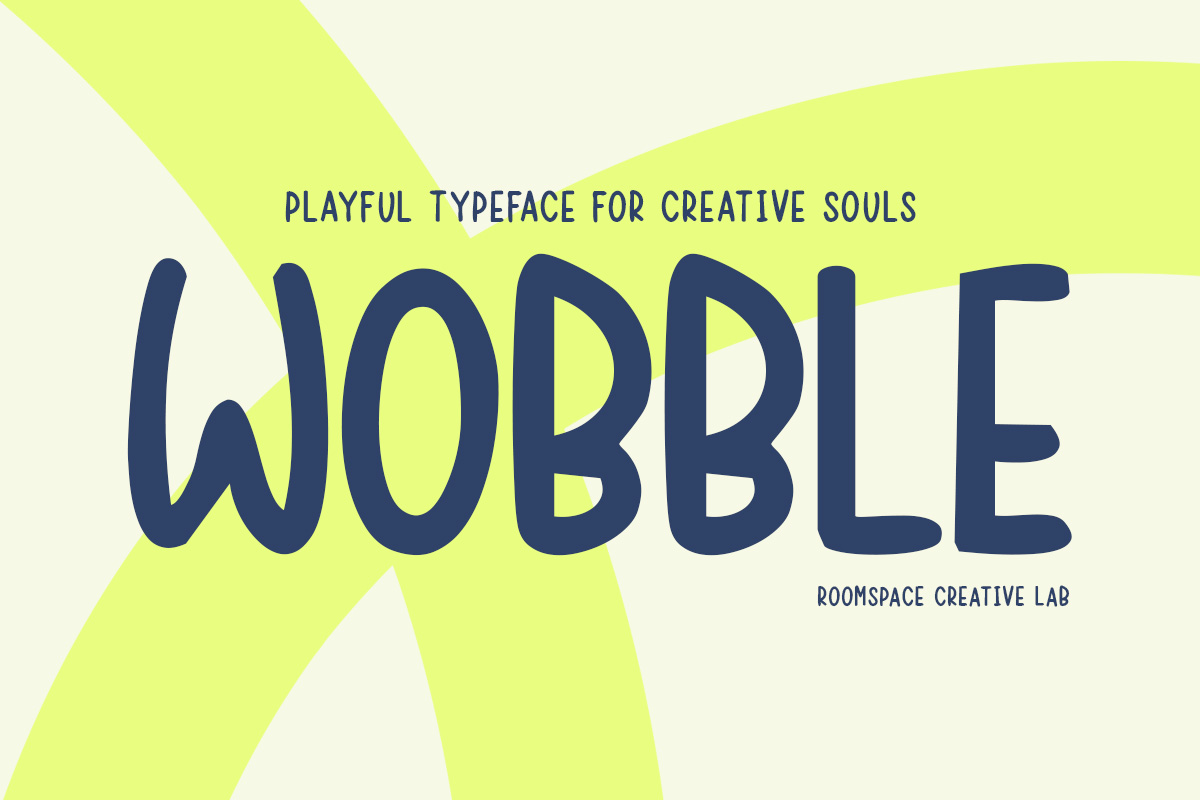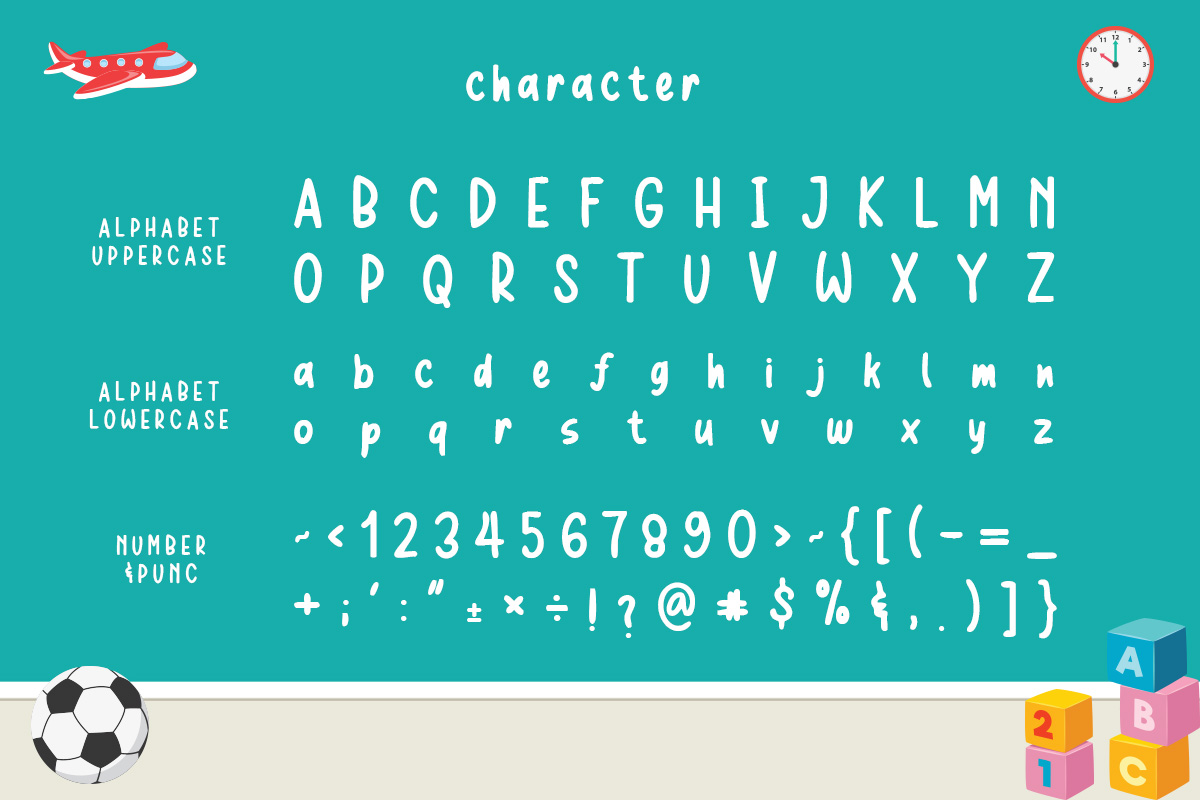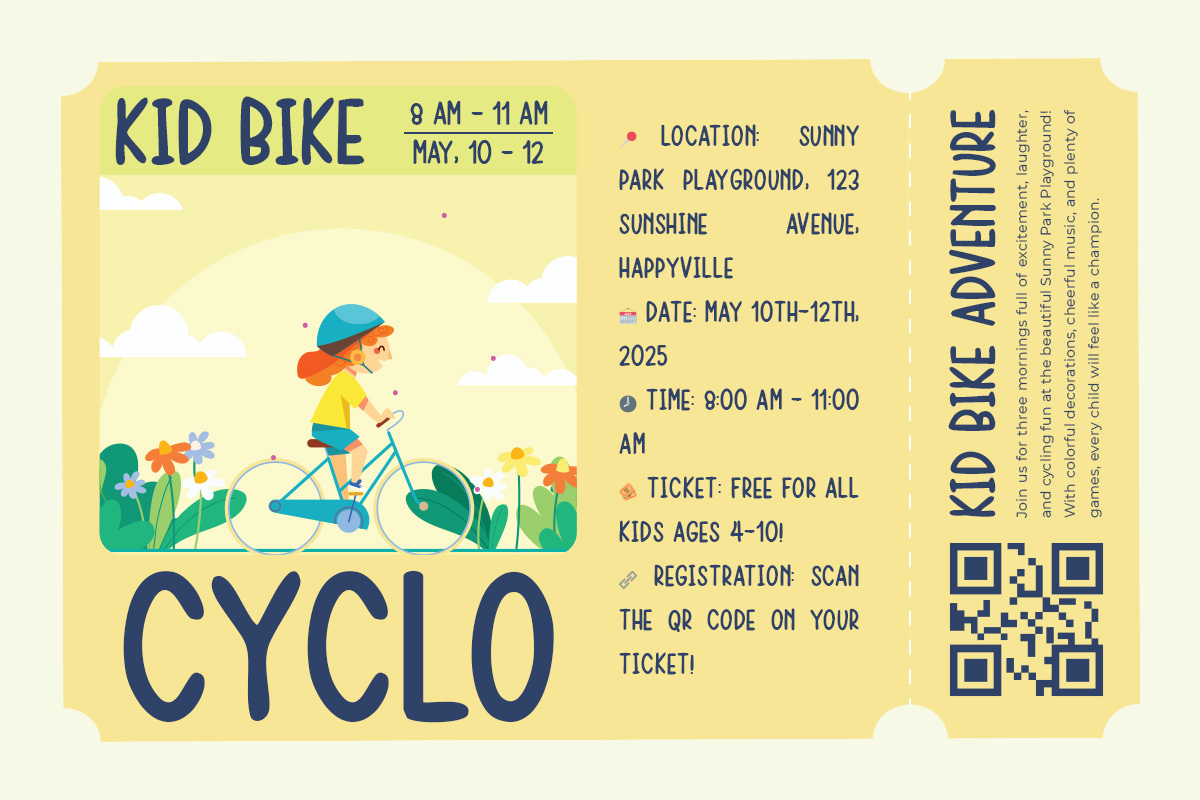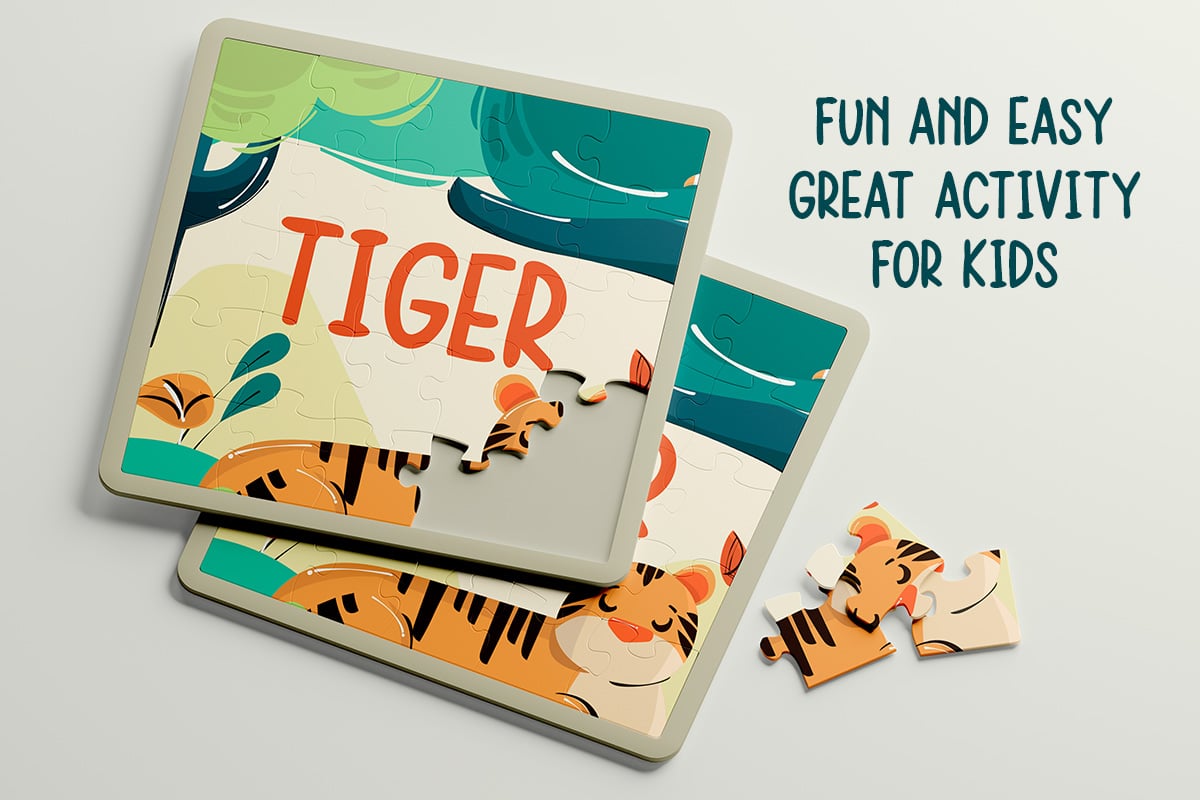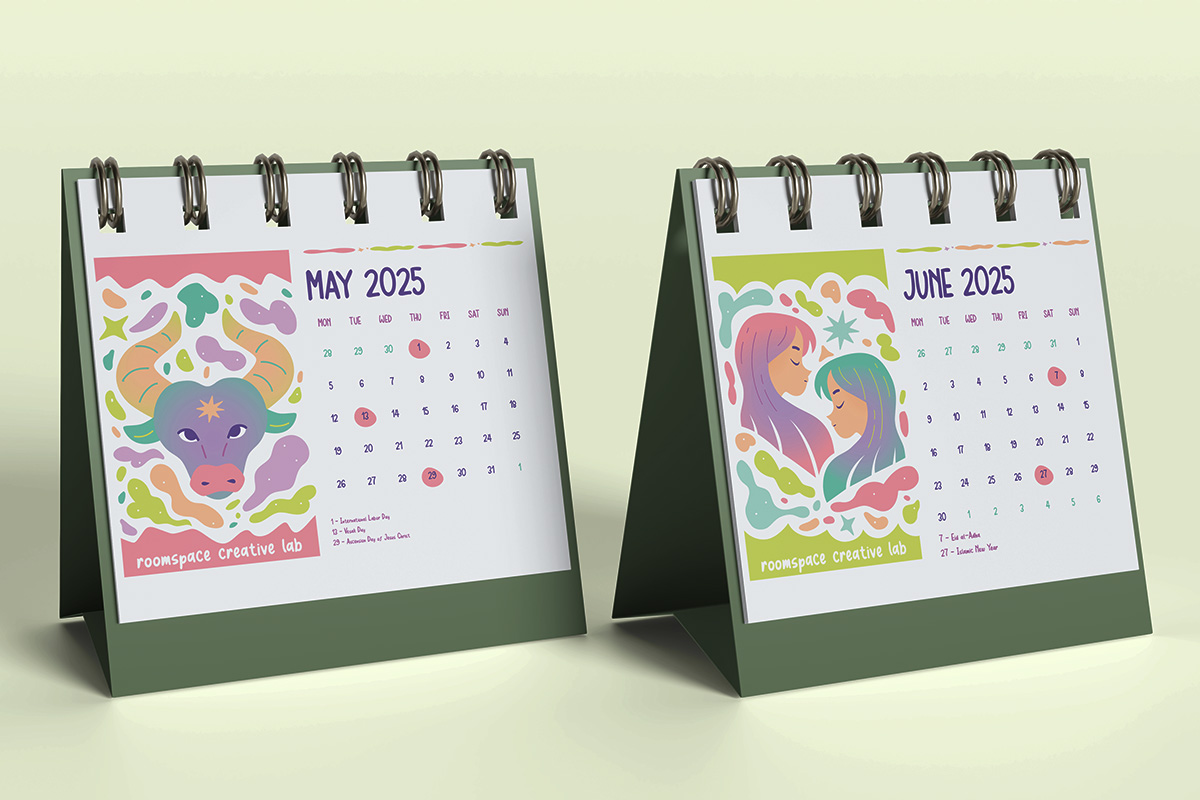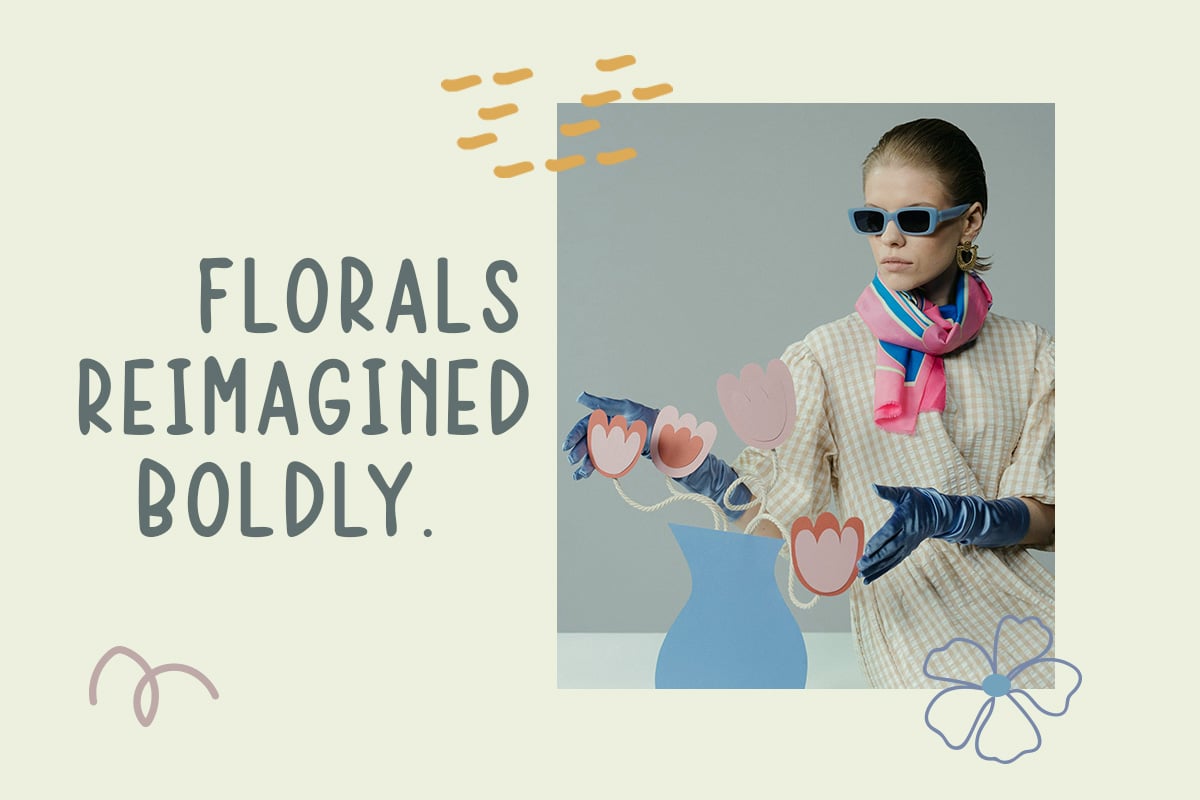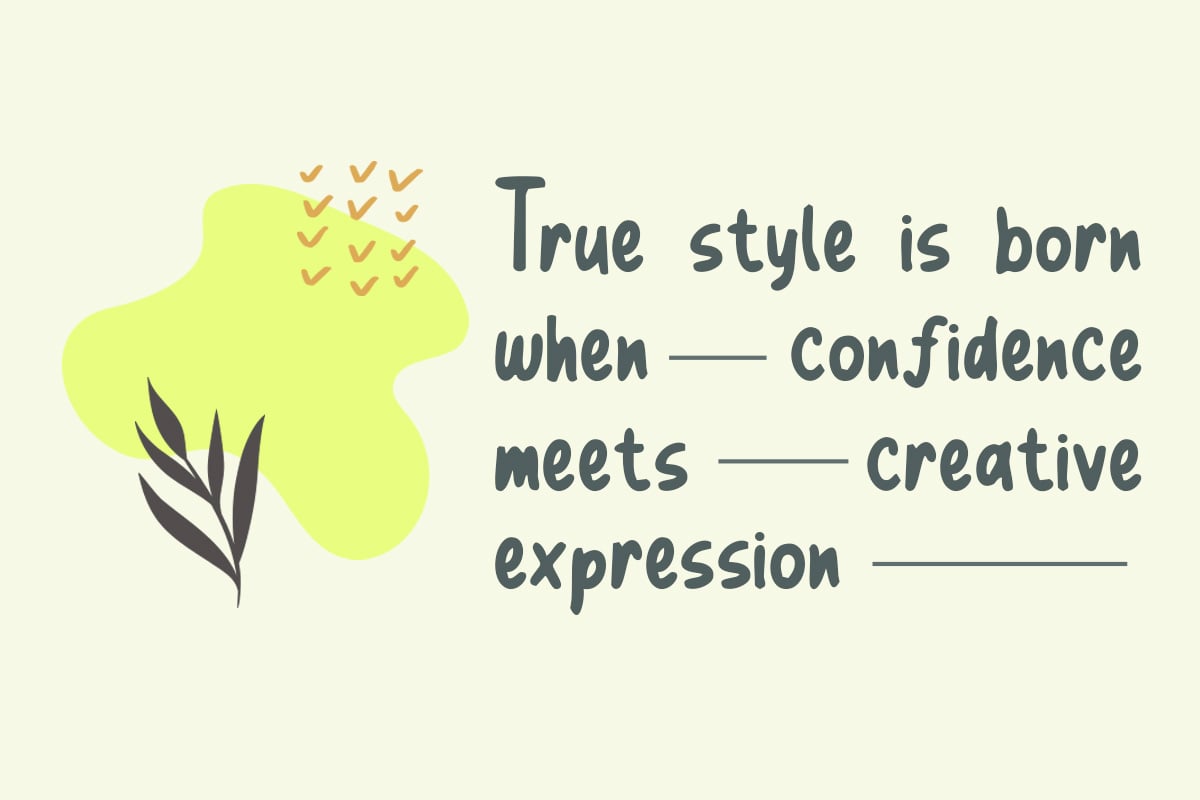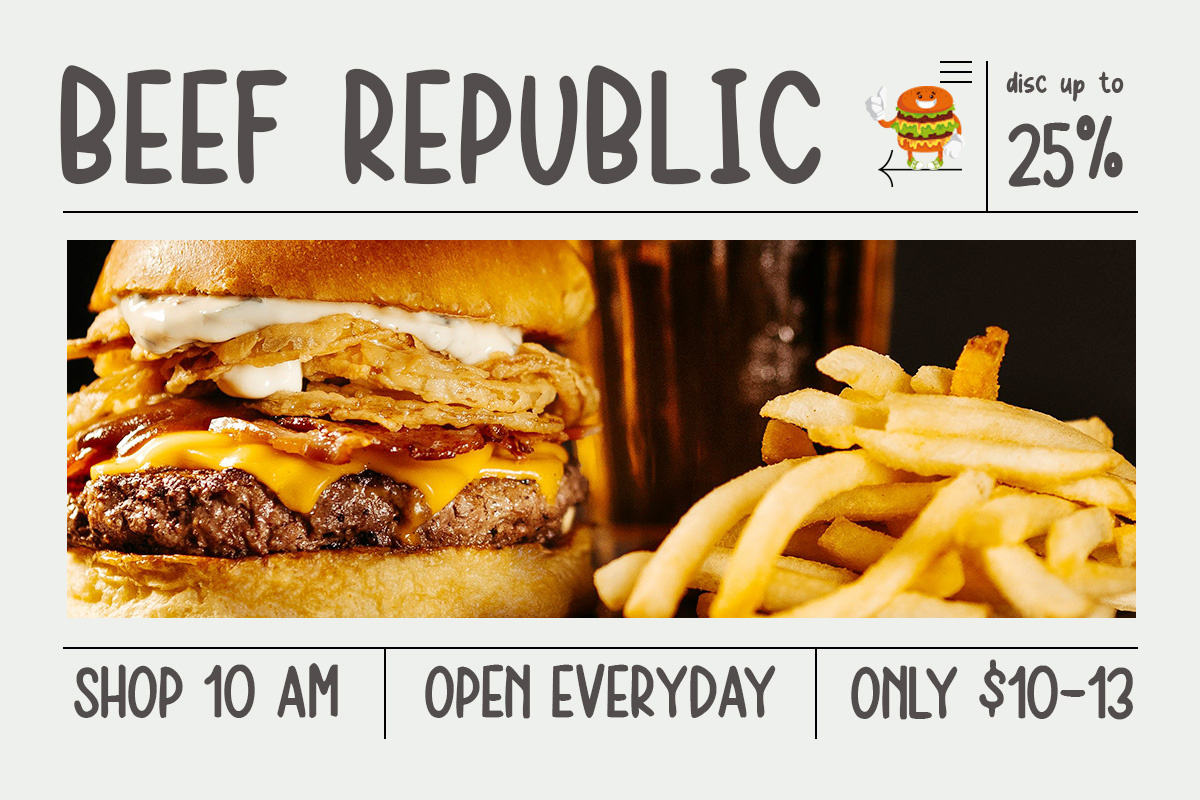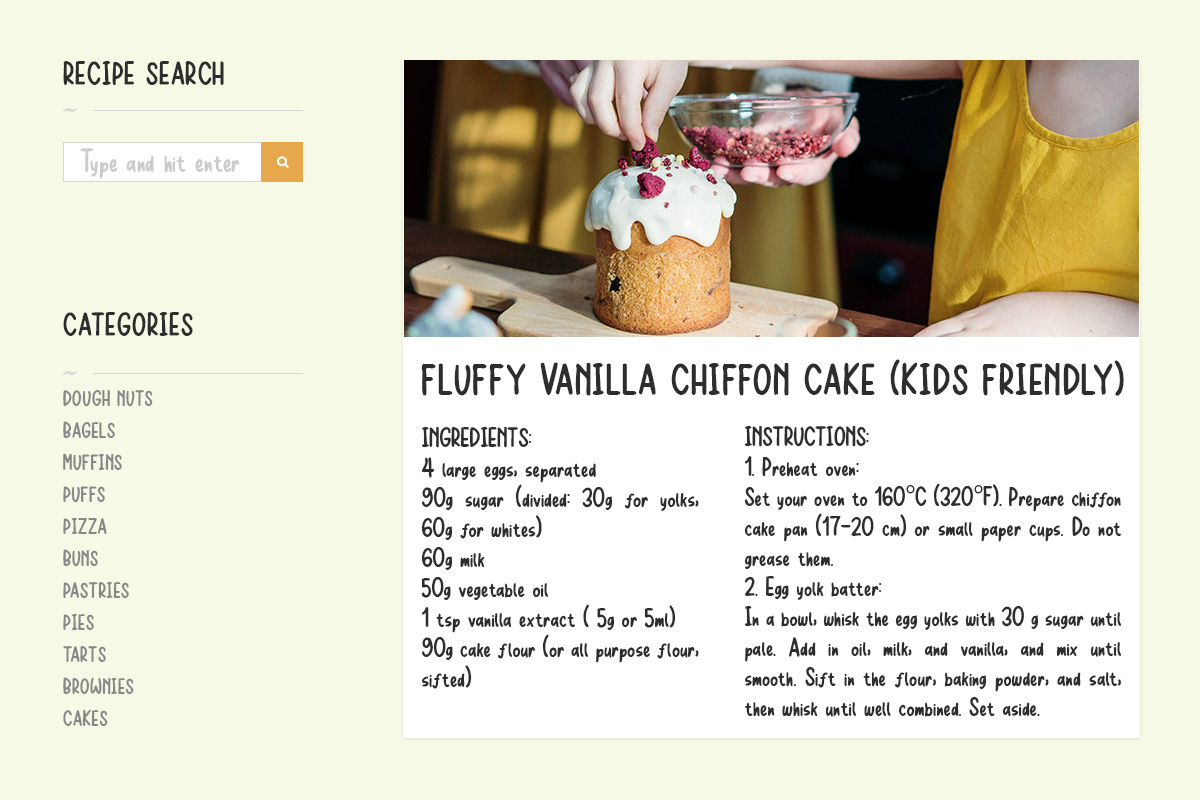
Wobble is a joyful handwritten typeface crafted to bring charm and imagination into every corner of your design. It radiates youthful energy and is..perfect for kid-centric branding, playful packaging, fun editorial layouts, or anything in need of a light-hearted, expressive voice. Its strokes are softly irregular with a handcrafted structure that feels warm, personal, and approachable without being messy or chaotic.